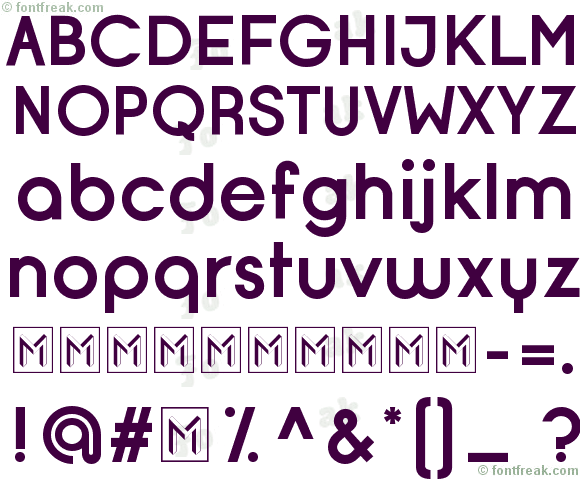
Opificio Bold
About Opificio Bold
Opificio Bold by MonoFonts is a striking sans-serif typeface that embodies a modern aesthetic with its rounded edges and bold strokes. This font is characterized by its consistent stroke weight, providing a sense of stability and strength. The soft curves create a friendly and approachable feel, while the boldness ensures it commands attention, making it perfect for a variety of design purposes. The clean lines and balanced spacing enhance readability, making it an excellent choice for both print and digital applications.
Ideal use cases for Opificio Bold include eye-catching restaurant menus, where its boldness can highlight dish names, and vibrant movie posters that require a strong visual impact. It also works wonderfully for branding elements, such as logos and signage, giving small businesses a contemporary and memorable identity. Additionally, this font can elevate wedding invitations, offering a touch of elegance while remaining accessible and modern. Content creators will find it particularly useful for social media graphics, where legibility and style are paramount.
The target audience for Opificio Bold encompasses graphic designers, small business owners, and content creators looking to add a modern touch to their projects. Its versatility across various platforms and mediums makes it a valuable addition to any designer's toolkit.